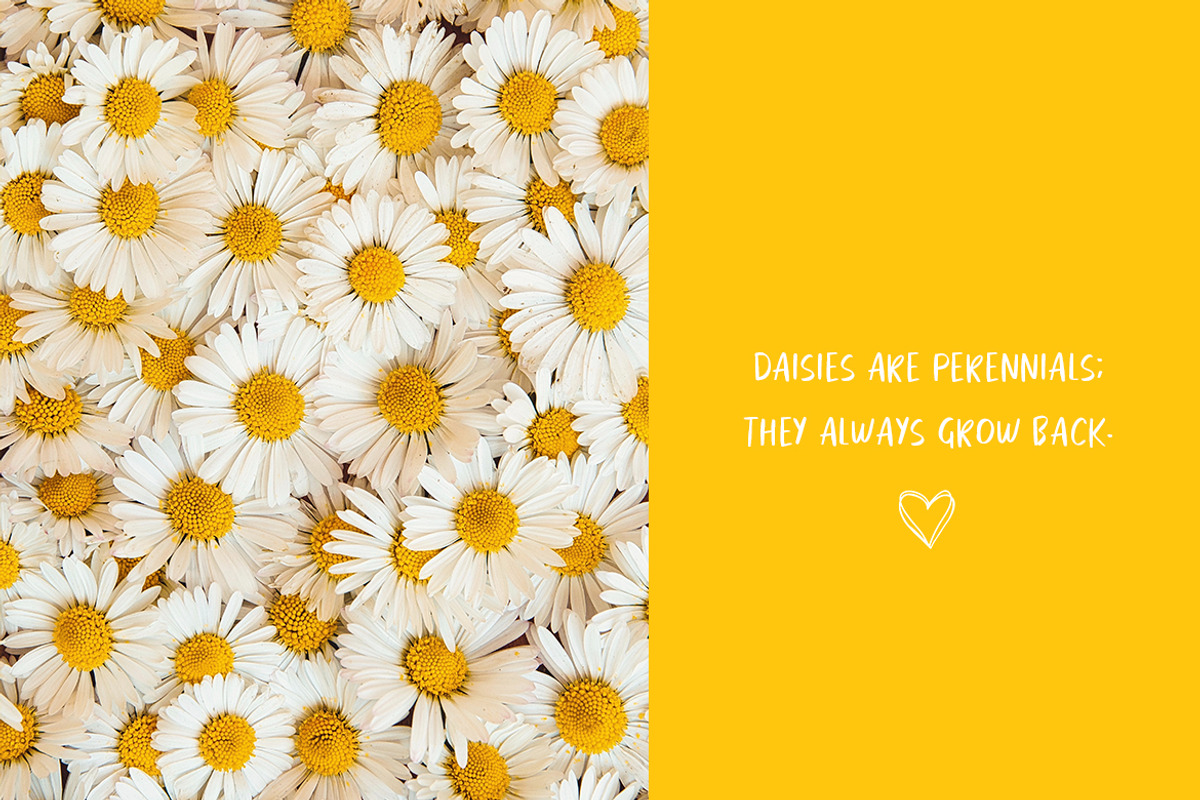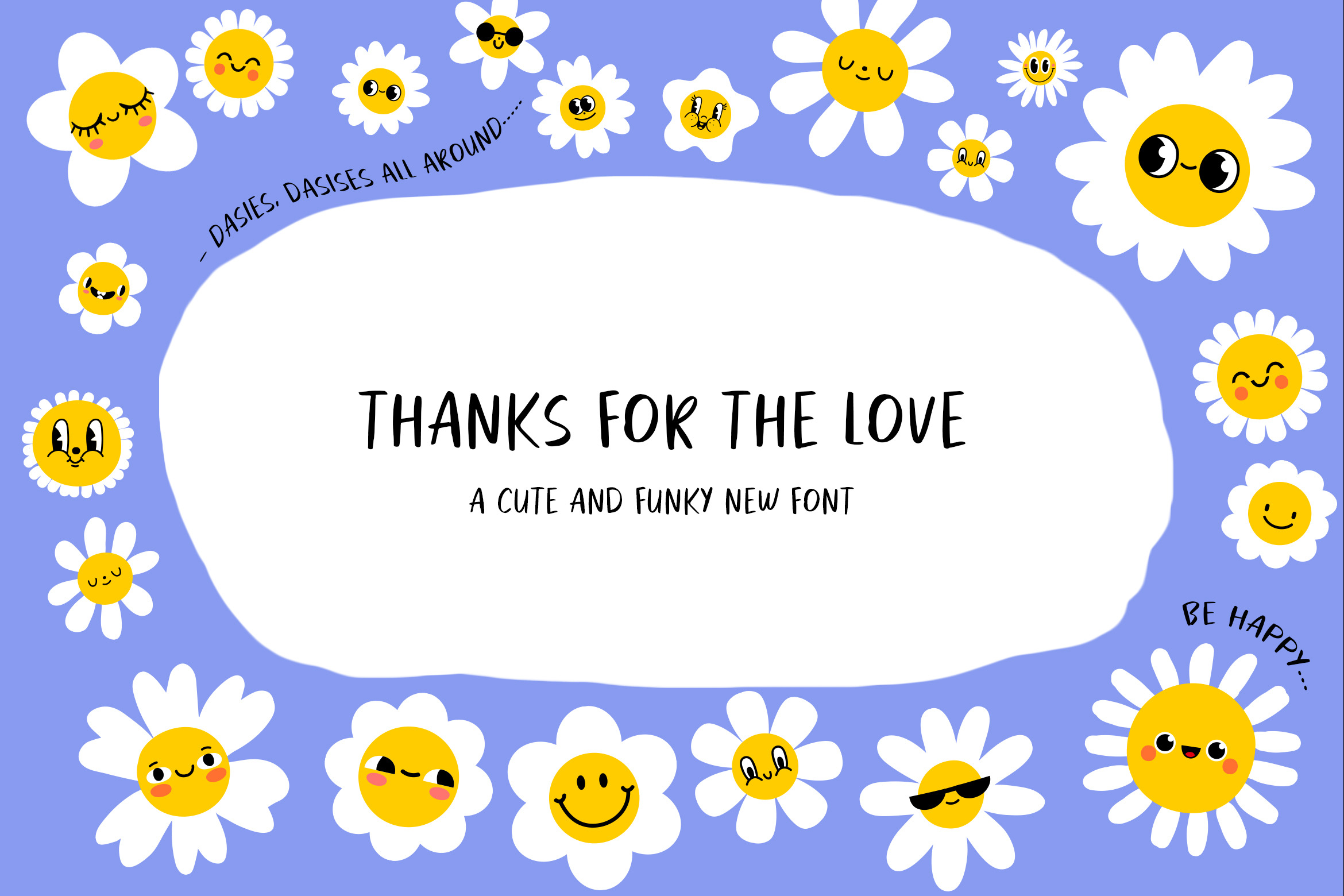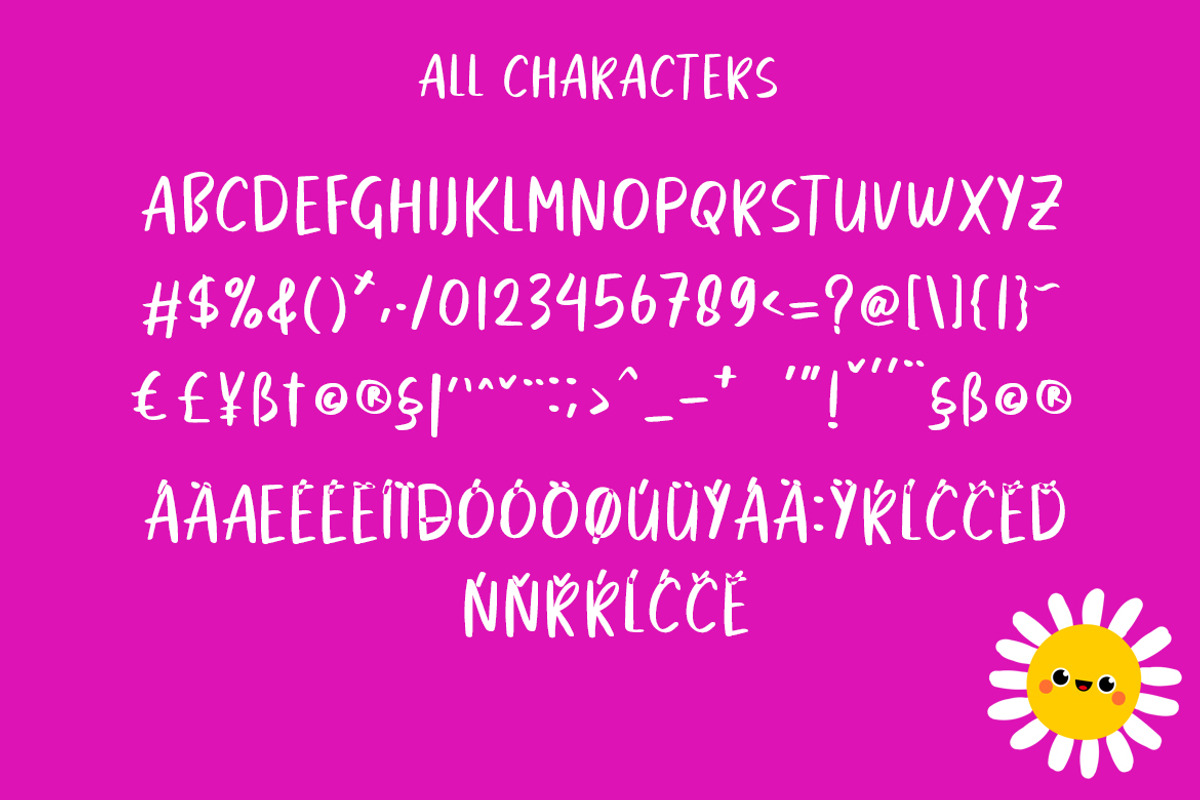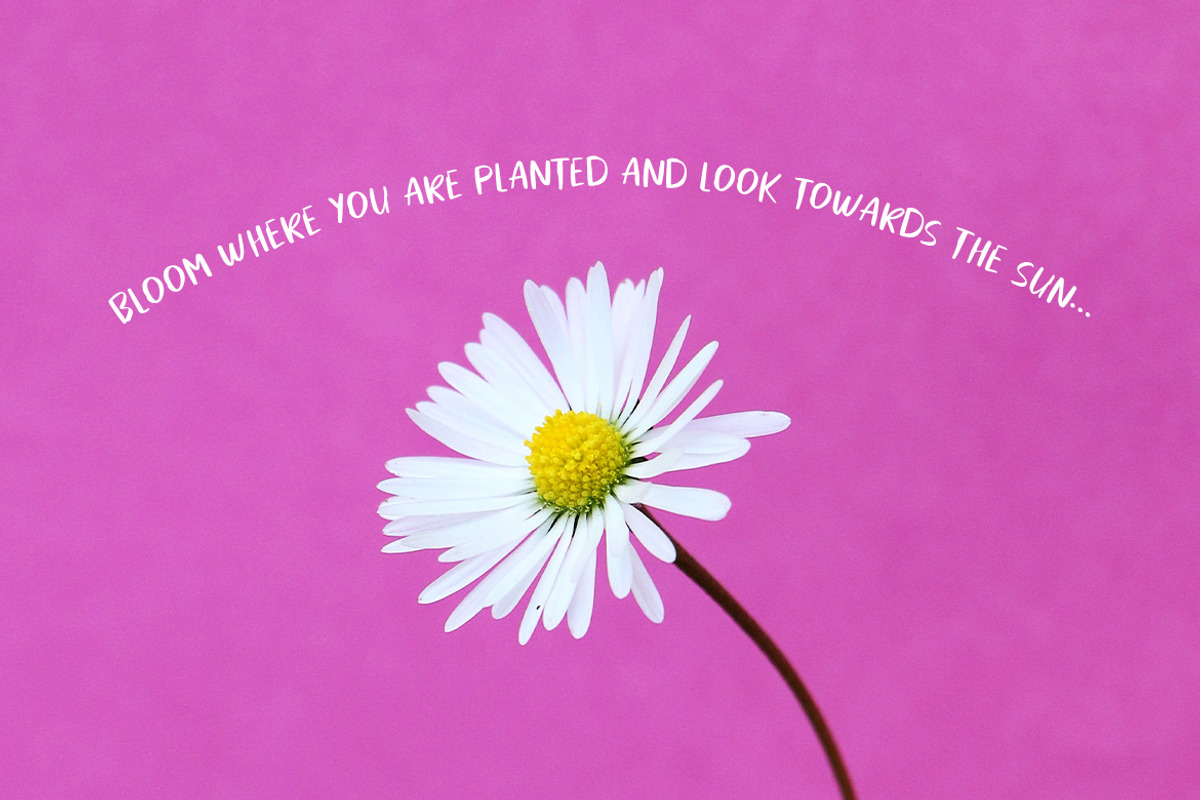
Thanks For The Love Font
This cute and sweet font is ideal for use in your digital journalling and planning or even for sleek and clean business designs.